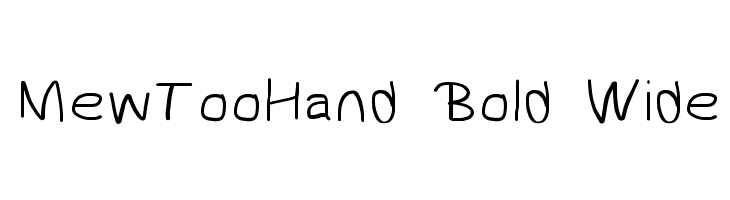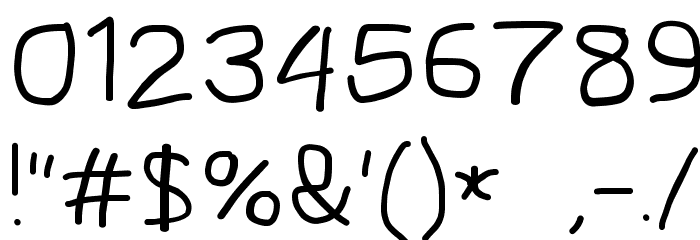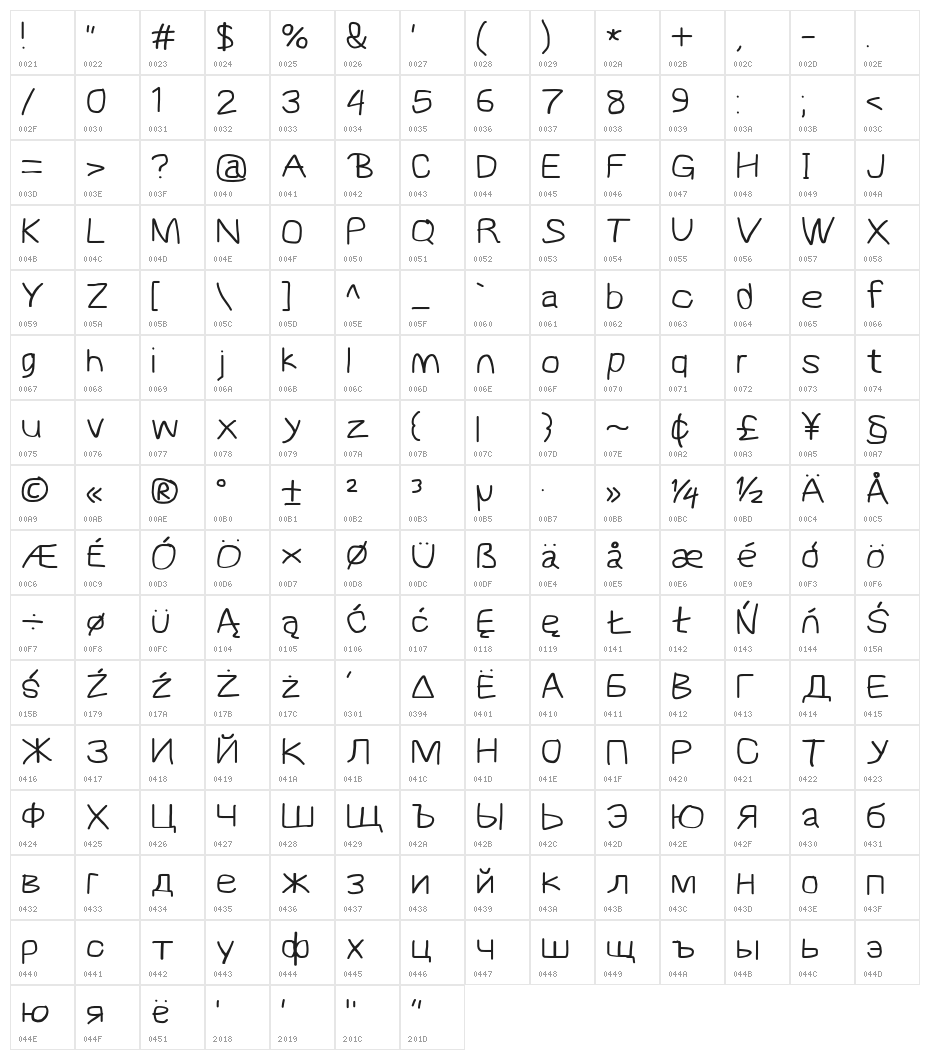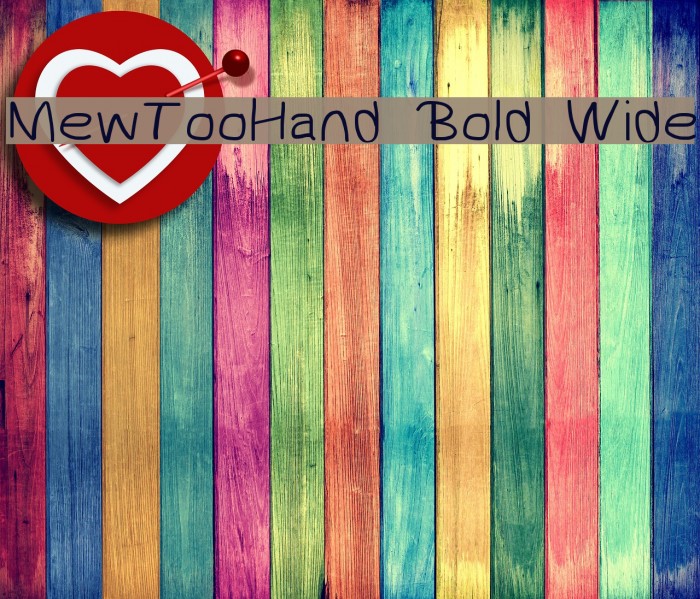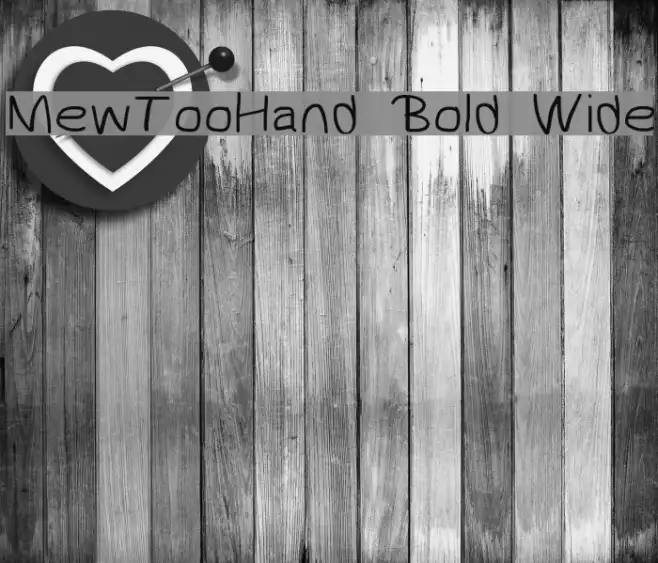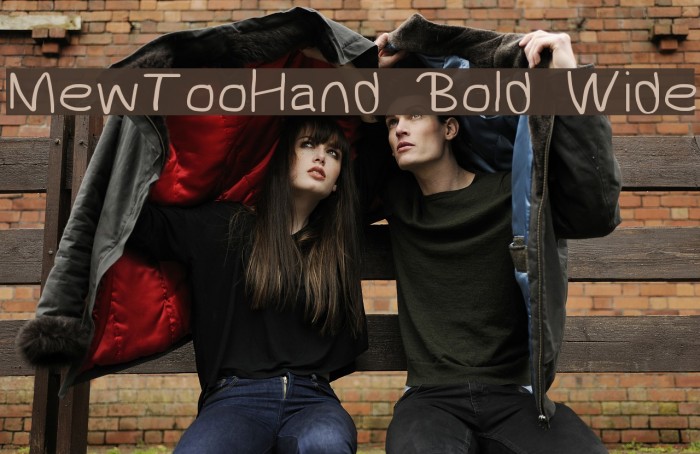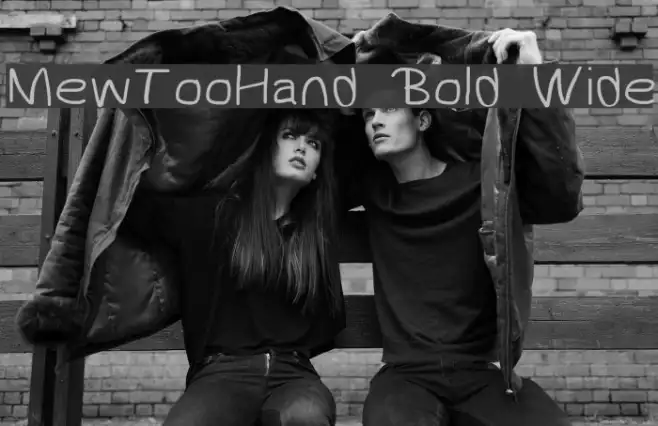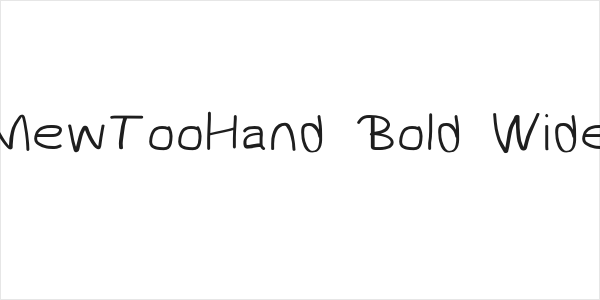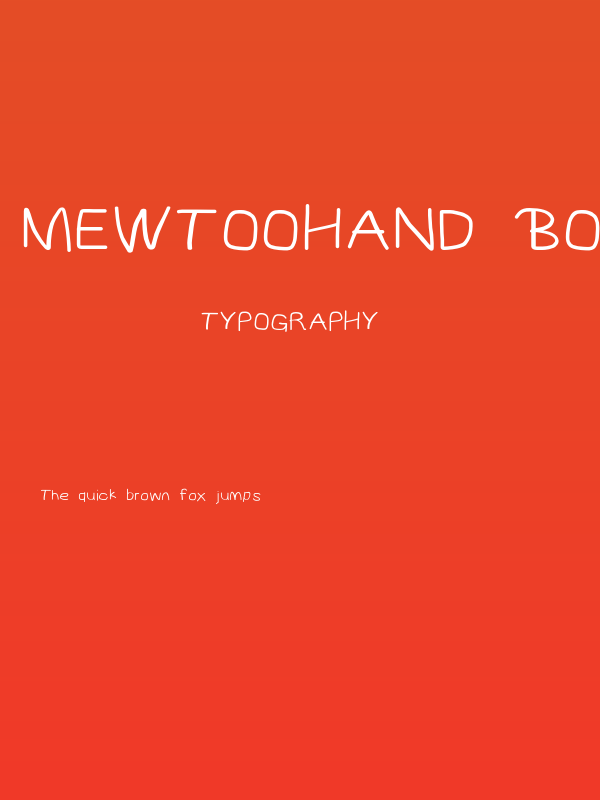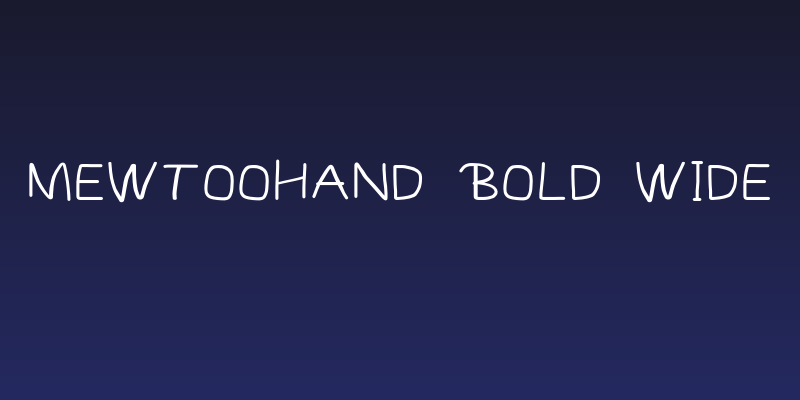
MewTooHand Bold Wide Font
MewTooHand Bold Wide Description
This font features a playful and casual handwritten style, with each character exhibiting a slightly irregular and organic form. The strokes are bold and wide, giving the font a substantial presence on the page. The uppercase letters are slightly taller than the lowercase, maintaining a consistent width throughout. The numbers and special characters follow the same playful style, making the font versatile for various uses. The overall appearance is friendly and approachable, suitable for projects that require a personal touch.
| Proposed Projects | Ideal for children's books, greeting cards, casual branding, and playful social media graphics. |